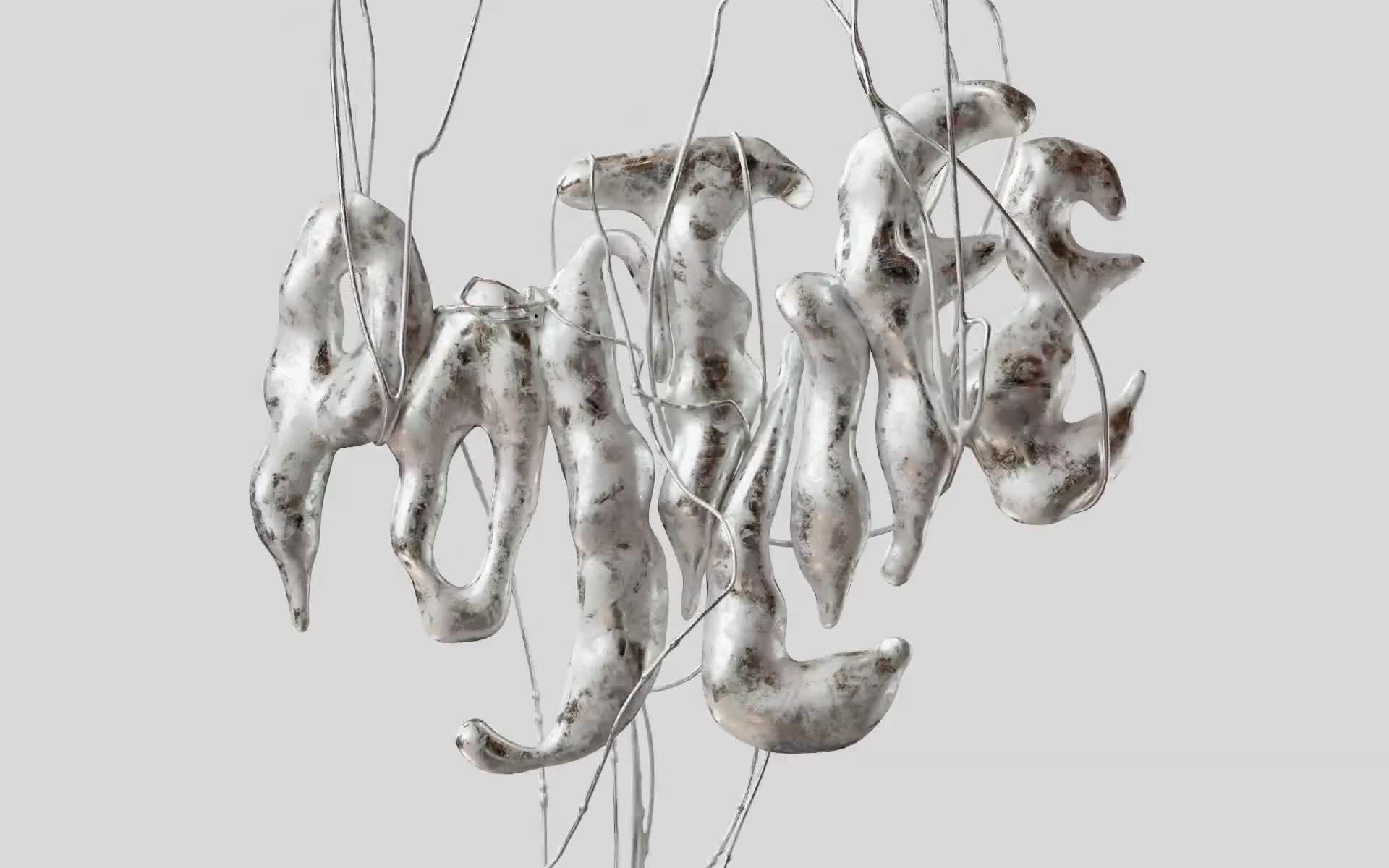
Postlife Magazine
Logo made entirely in C4D using procedural generation instead of static design. Core skeleton stays consistent but surface and silhouette shift dynamically. Circuit-solder metallic finish bridges print and digital without going full cyberpunk.